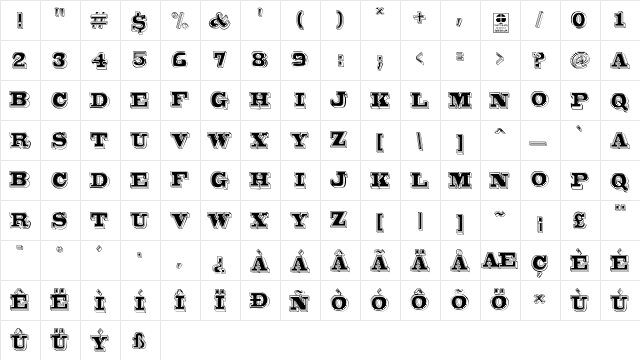
Bro 4D Demo Regular
Design Context for Bro 4D Demo Typeface
Bro 4D Demo is a composed and adaptable typeface that performs quietly and consistently across a wide range of design contexts.